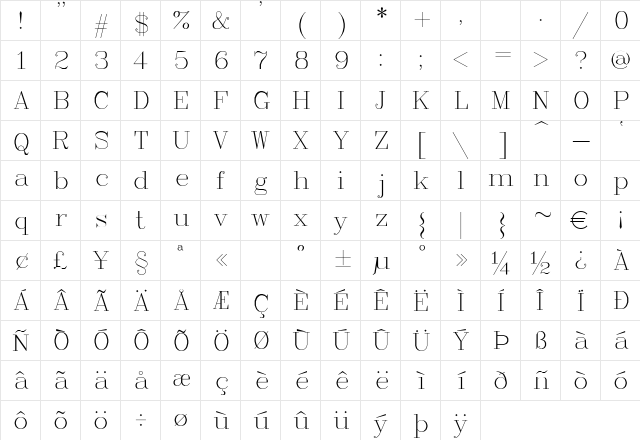
Complex Regular Font Preview
Complex Regular
Complex Regular Font Details
Design Context for Complex Typeface
Complex is a composed and adaptable typeface that performs quietly and consistently across a wide range of design contexts.